Celebrating International Jazz Day with Reid Miles’ Blue Note Records typographic legacy
Upon the celebration of International Jazz Day we take a trip down the memory lane with the acclaimed typographic revolution of Reid Miles for Blue Note Records.
With his stunning visual design Reid Miles, the Chicago born graphic designer and photographer brought the typography into the music genre of jazz. After working in New York City in the early 1950s for John Hermansader and Esquire magazine, Miles was hired in his own right around 1955 by Francis Wolff of the jazz record label Blue Note to design album covers when the label began releasing their recordings on 12" LPs.
Miles designed over five hundred covers, frequently incorporating the session photographs of Francis Wolff and, later, his own photographs, although many of his later designs dispensed entirely with photographs.
Reid Miles, Blue Note Records. Album cover for Joe Henderson, In 'n Out, 1964, @MoMA
Miles wasn't particularly interested in jazz, professing to have much more of an interest in classical music; he received several copies of each Blue Note album he designed but gave most of them to friends or sold them to used record shops. Miles used the descriptions of the sessions relayed to him by producer Alfred Lion to create the artwork.
Lion's retirement as a record producer in 1967 coincided with the end of Miles' connection with Blue Note. "Fifty Bucks an album...they loved it, thought it was modern, they thought it went with the music...one or two colors to work with at that time and some outrageous graphics!" notes on his legacy the book “The Cover Art Of Blue Note Records” by Graham Marsh and Glyn Callingham.
Reid Miles, Blue Note Records. Album cover for Larry Young, Unity, 1966, @MoMA
Miles’ artistry made Blue Note Recordings a case study for stunning record sleeves design. Established in 1939 by Berlin-born Alfred Lion, Blue Note found its typographic voice in 1956, when Chicago-born Reid Miles decided to join this all-American label.
“Miles made the cover sound like it knew what lay in store for the listener: an abstract design hinting at innovations, cool strides for cool notes, the symbolic implications of typefaces and tones” writes Felix Cromey in Blue Note: The Album Cover Art. His tight designs were an experiment of his, a unique way to play jazz with the letterform in an abstract, yet genius way.
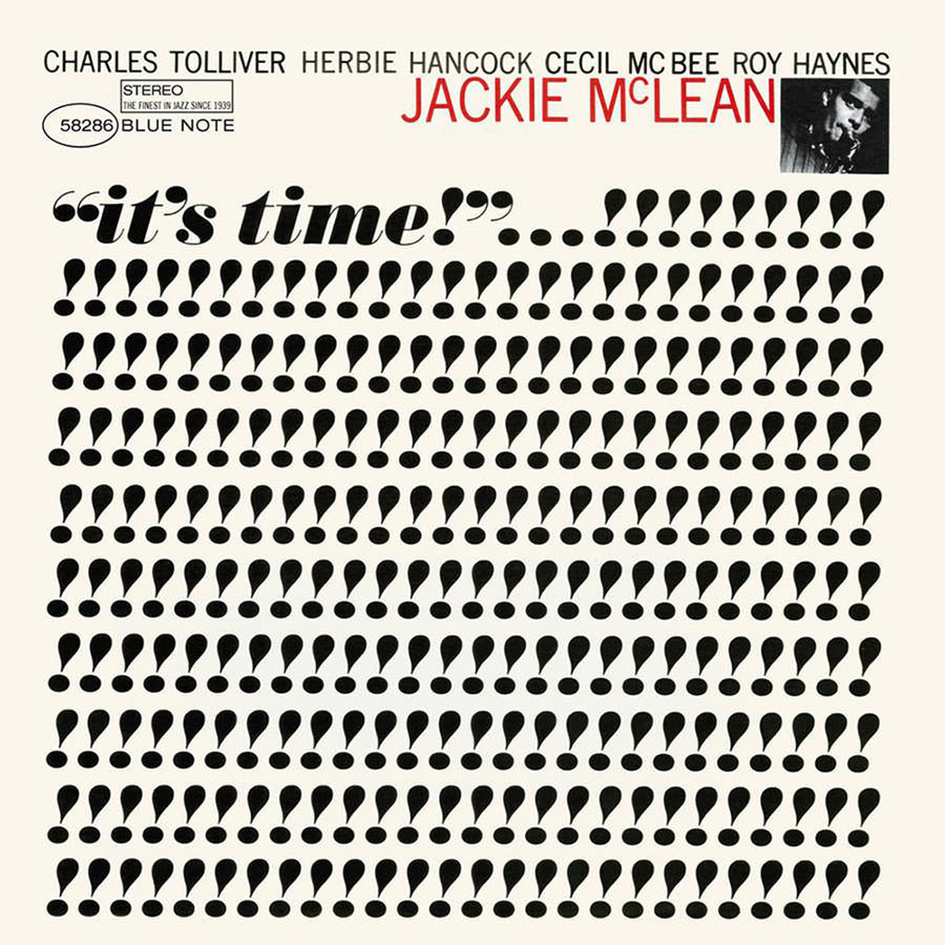
Reid Miles, Blue Note Records. Album cover for Jackie Mclean, It's Time! 1964, @MoMA
He “never settled into a typeface or system”, notes Richard Cook in Blue Note The Biography. “From Sonny Clark’s Cool Struttin, to Freddie Hubbard’s Hub-Tones, Miles made sure that his sleeves were as heavyweight as the music inside” he added. A number of other designers contributed to what Blue Note came to be for people like Shawn Hazen who are after the typographic music gems of our times. Paul Bacon, John Hermansader, even Andy Warhol made a cameo appearance in the label’s gallery of music but it is thanks to Reid Mile’s stunning dynamic typographic treatment that made Blue Note Recordings the B.B. King of Album Covers.